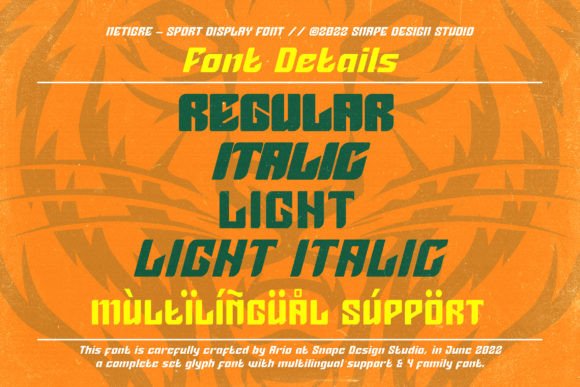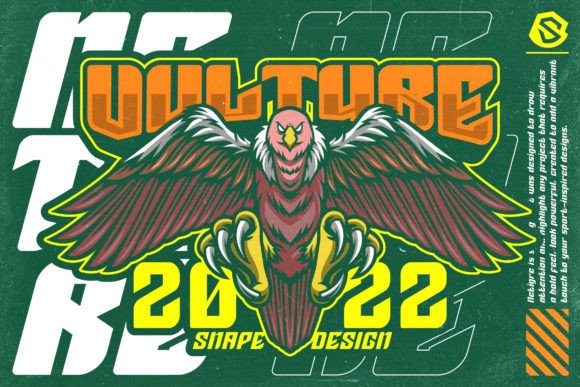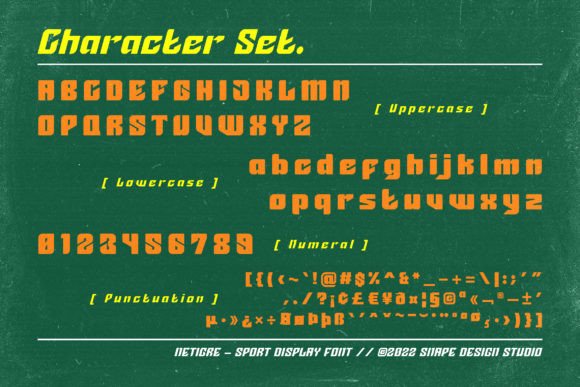
Introduction to Netigre Font
Netigre is a robust font that was designed to draw attention and highlight any project that requires a bold feel, and a powerful look, created to add a vibrant touch to your sport-inspired designs.
Suitable for sports design, team, jersey, league, movie, film, logo, poster, game, book cover, headlines, title, and many more projects Add this font to your creative ideas and notice how it will make them stand out.